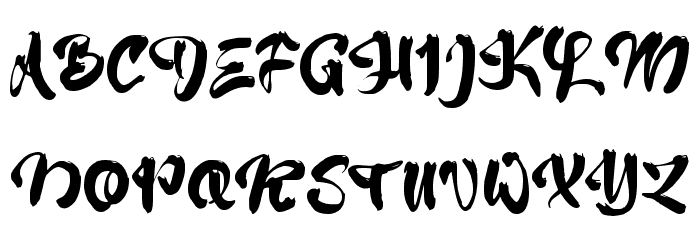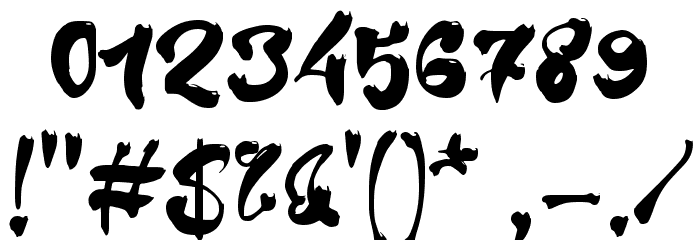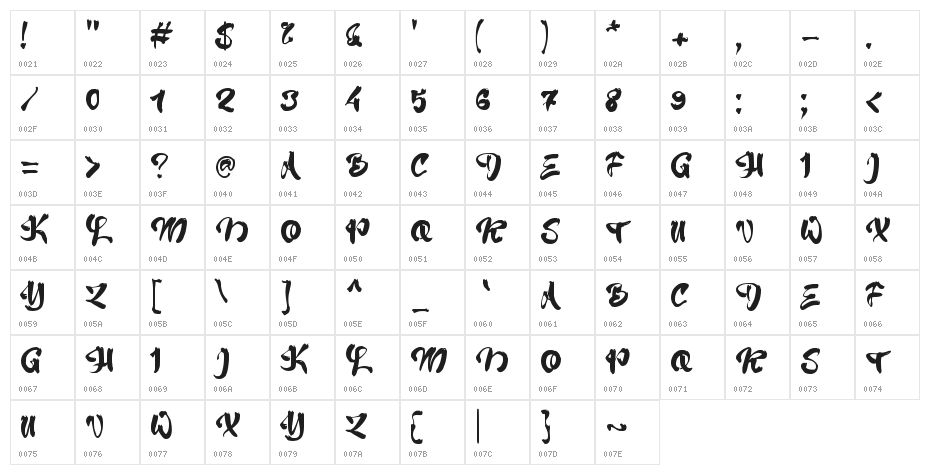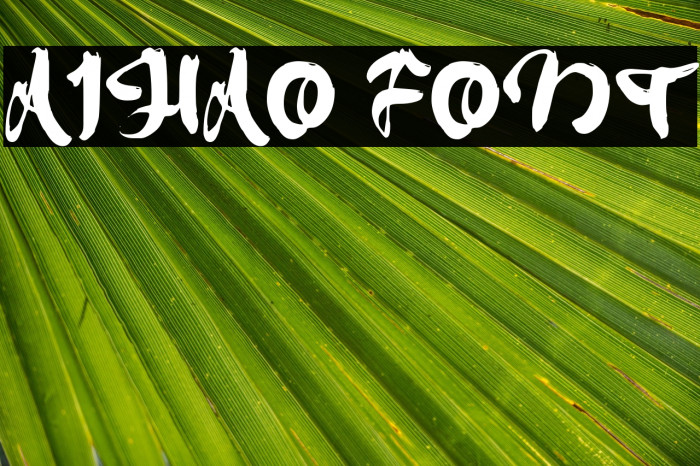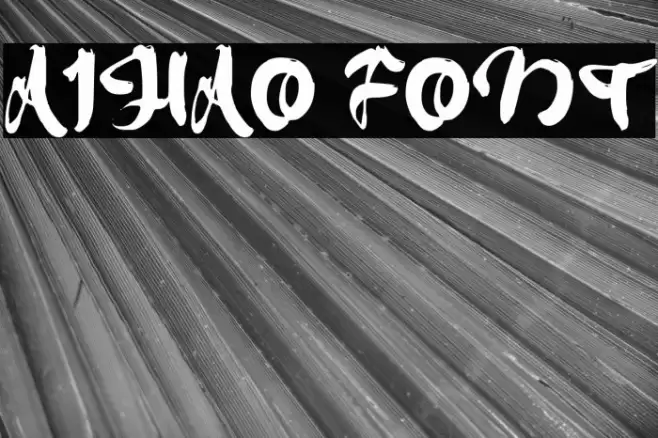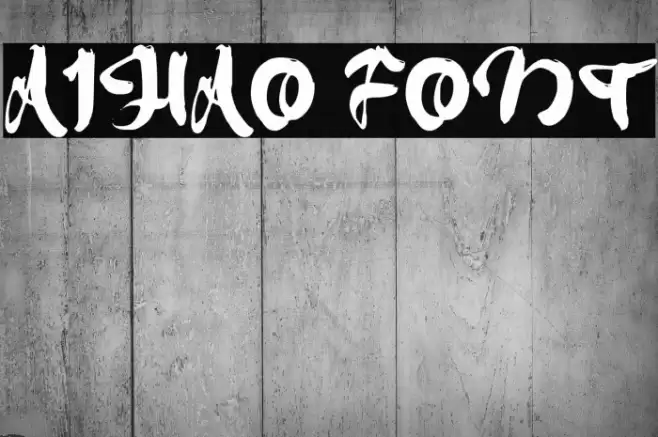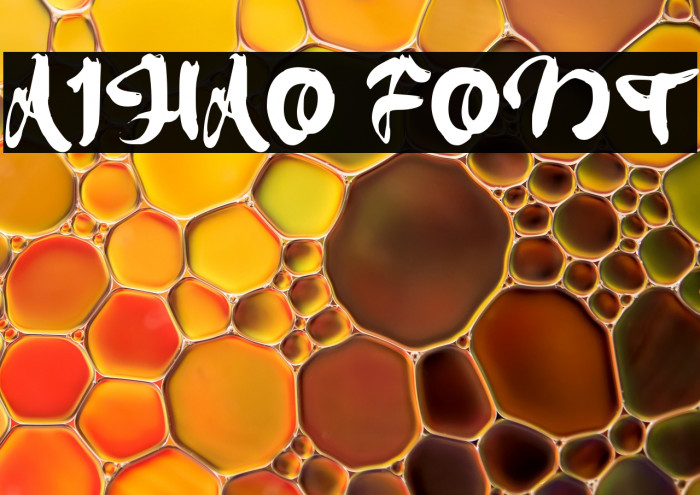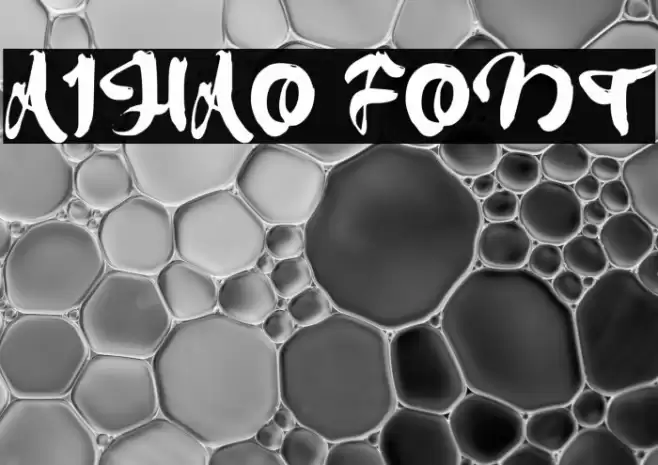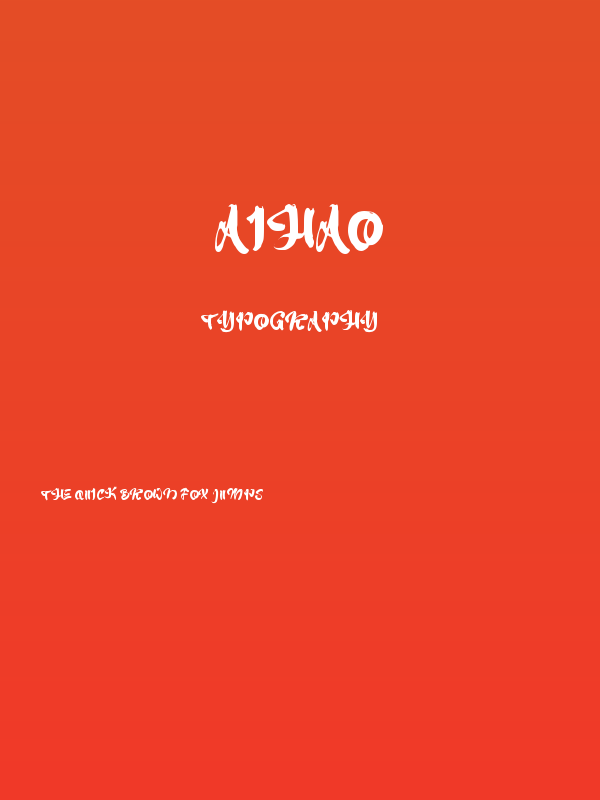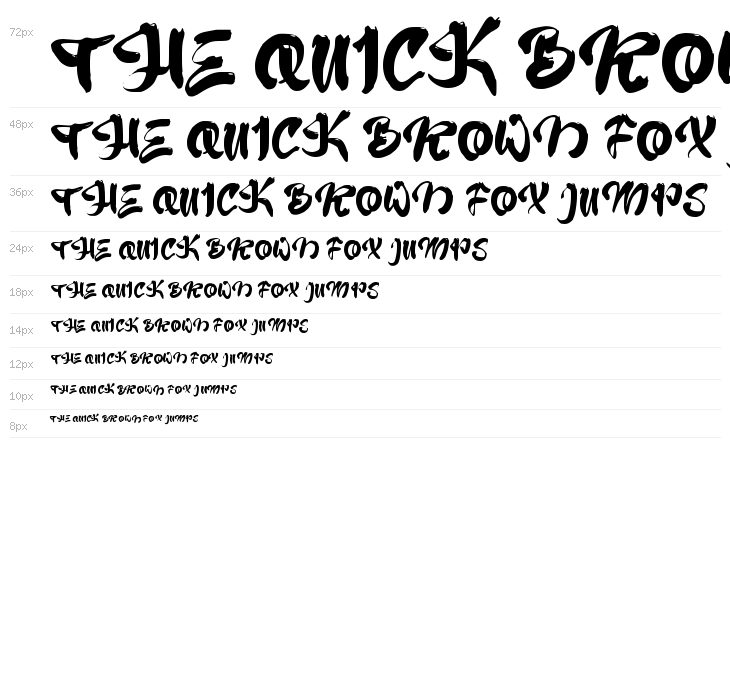
Aihao Font
This font features a bold and expressive script style, characterized by its fluid and dynamic strokes. The letters are connected in a cursive manner, giving it a handwritten appearance. The uppercase letters are particularly ornate, with dramatic flourishes and varying stroke widths that add a sense of movement and energy. The lowercase letters maintain a consistent style, complementing the uppercase with their own unique flair. Numbers and special characters are designed to match the overall aesthetic, ensuring a cohesive look across all text. The font's boldness and artistic flair make it suitable for creative and eye-catching designs.
A bold, expressive script font with dynamic, cursive strokes.
- Proposed Projects: Ideal for branding, invitations, posters, and artistic projects that require a personal touch.
- Use Case: Logos, Headlines, Invitations